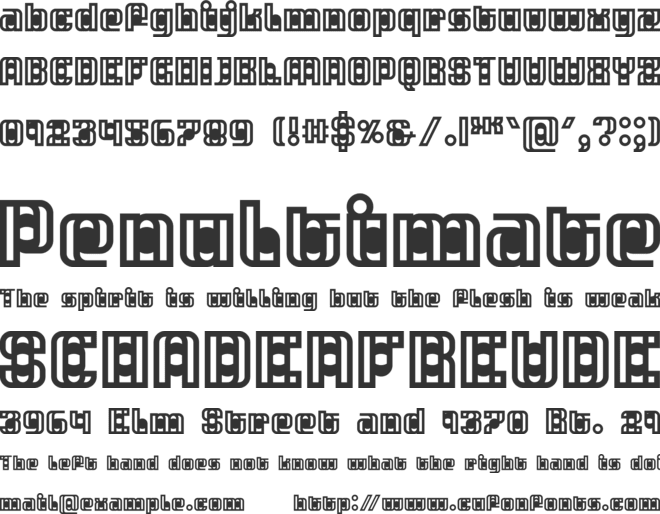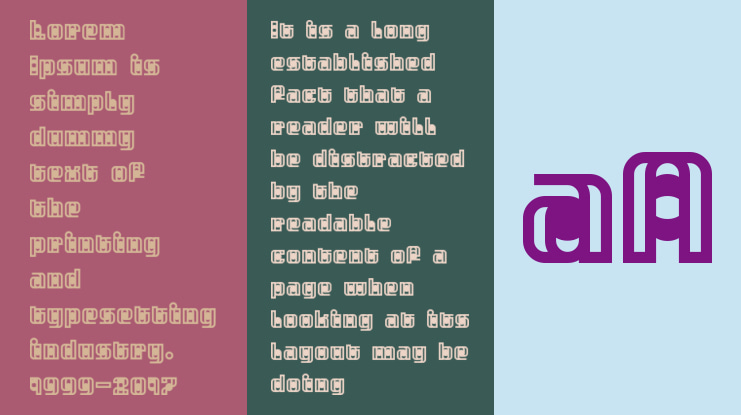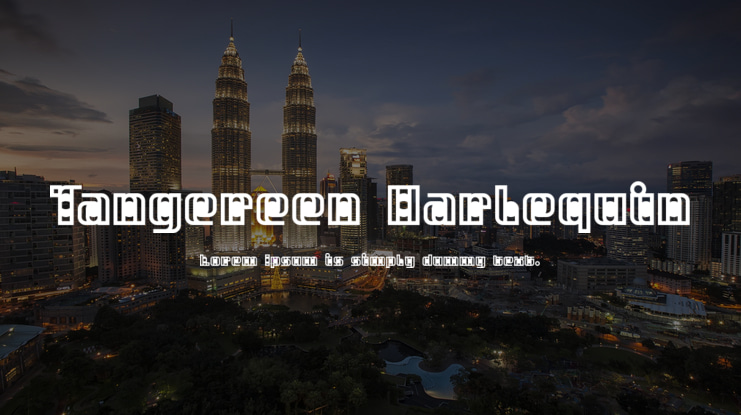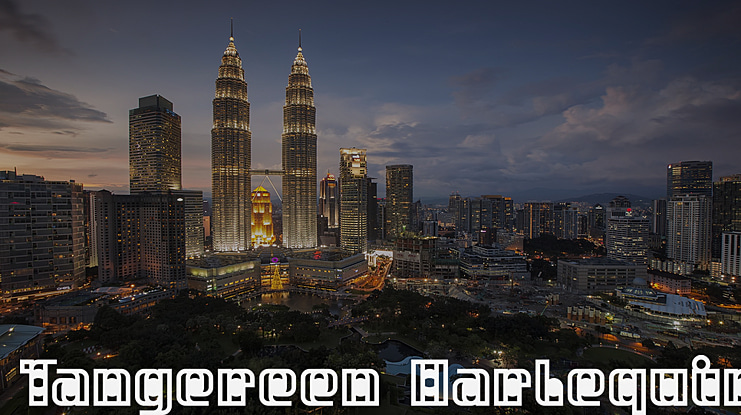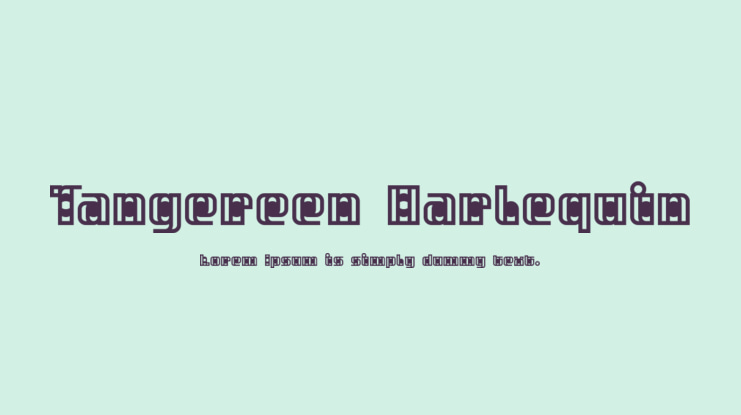
Tangereen Harlequin Font
The fourth (and perhaps final?) rendition of Tangereen. This one is a bit hard to read, but has a certain ornamental appeal. Other fonts in this family: Tangereen 1 & 2 - https://www.fontspace.com/tangereen-font-f34404 Tangereen 3 - https://www.fontspace.com/tangereen-3-font-f34944